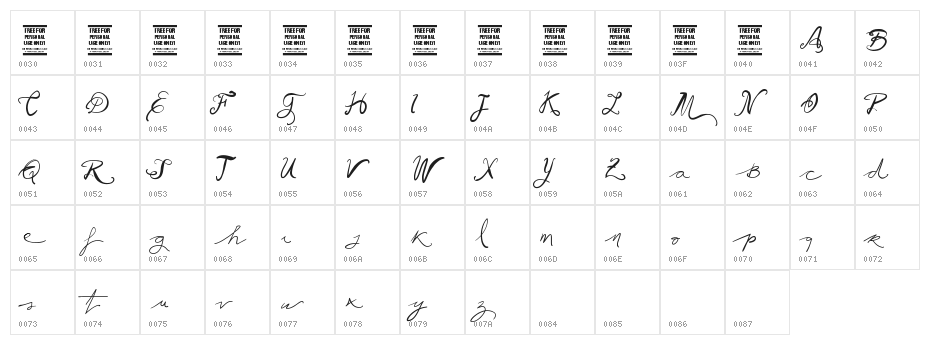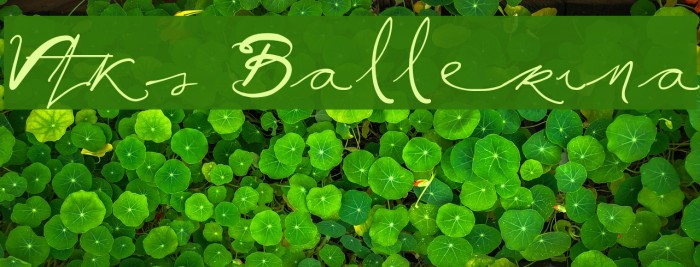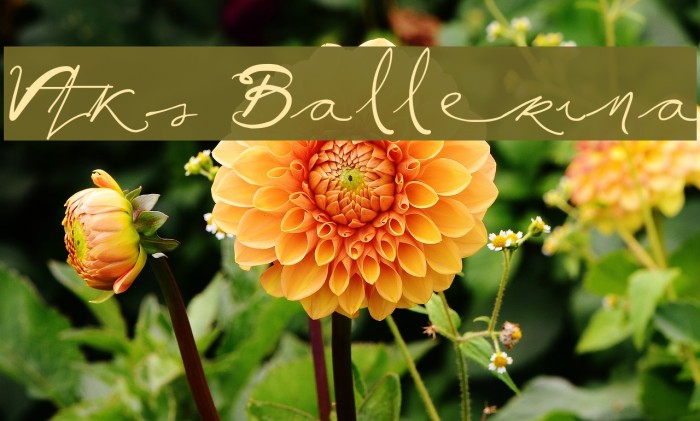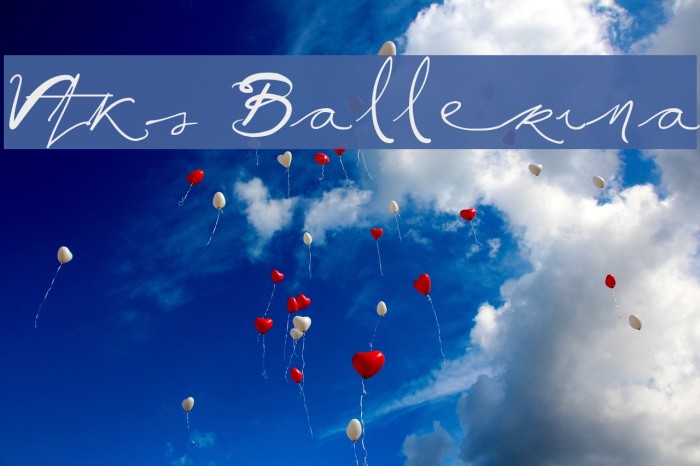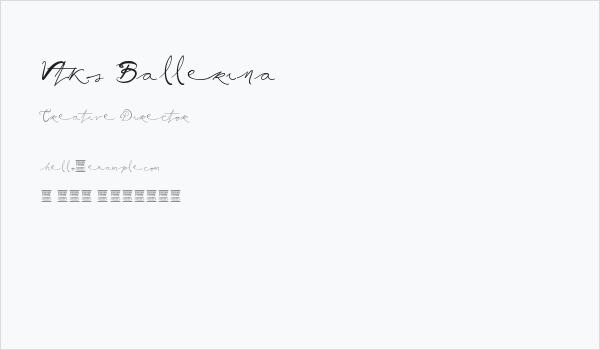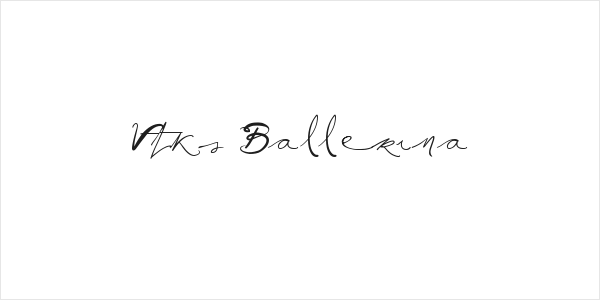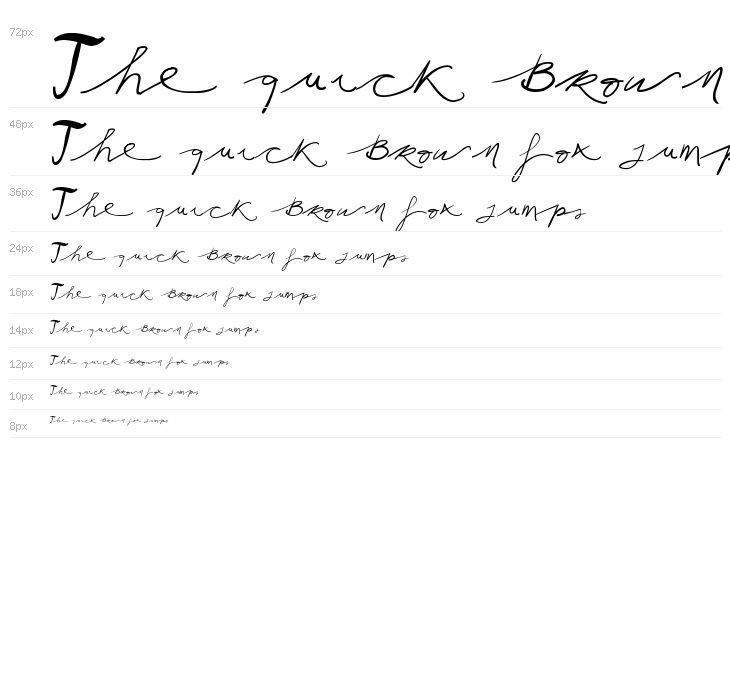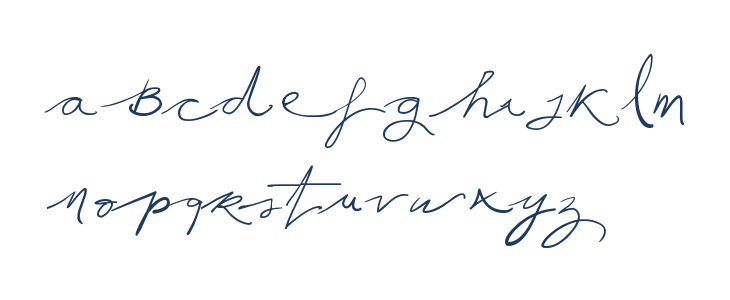
Vtks Ballerina Font
Vtks Ballerina Description
This font exudes elegance and sophistication with its flowing, cursive script style. The letters are intricately designed with graceful curves and flourishes, giving it a romantic and artistic feel. The uppercase letters are particularly ornate, featuring elaborate swashes that extend beyond the baseline and cap height, adding a dramatic flair. The lowercase letters maintain a consistent style, with smooth connections and a slightly slanted orientation that enhances readability. This font is perfect for projects that require a touch of elegance and creativity, such as wedding invitations, greeting cards, and branding for luxury products. Its artistic nature makes it stand out, while the consistent stroke width ensures clarity and legibility.
| Proposed Projects | Ideal for wedding invitations, greeting cards, luxury branding, and artistic projects. |